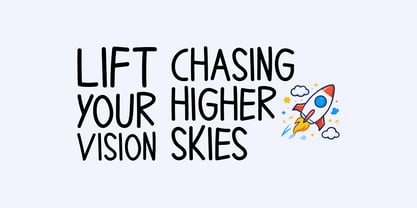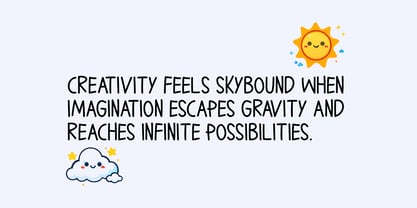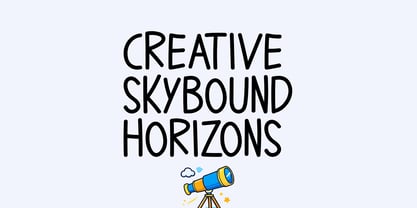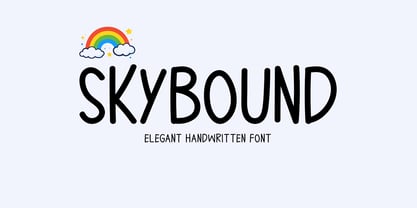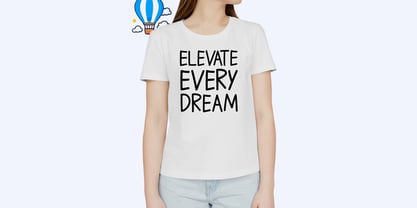
Skybound
par Seemly Fonts
La famille de polices Skybound a été conçue par Md. Sohail Bhuiyan et publiée par Seemly Fonts. Skybound contient 1 styles. En savoir plus sur cette famille
Skybound is an elegant handwritten font created with smooth strokes and a natural, flowing rhythm. Its refined yet friendly appearance makes it a great choice for stationery, logos, t-shirts, posters, flyers, website headers, and print designs. Whether used for branding, creative layouts, or digital visuals, Skybound adds a graceful and uplifting character to every project.